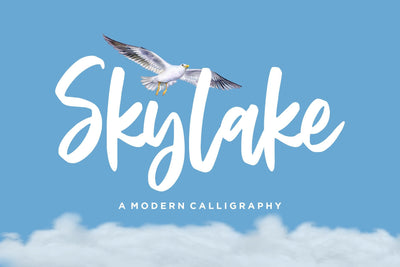
Skylake Modern Calligraphy Font
Skylake is a Modern Calligraphy Font.
Skylake is a lovely and delicate script font that exudes elegance and class. This font was particularly crafted for those who need a beautiful and refreshing look to their designs.